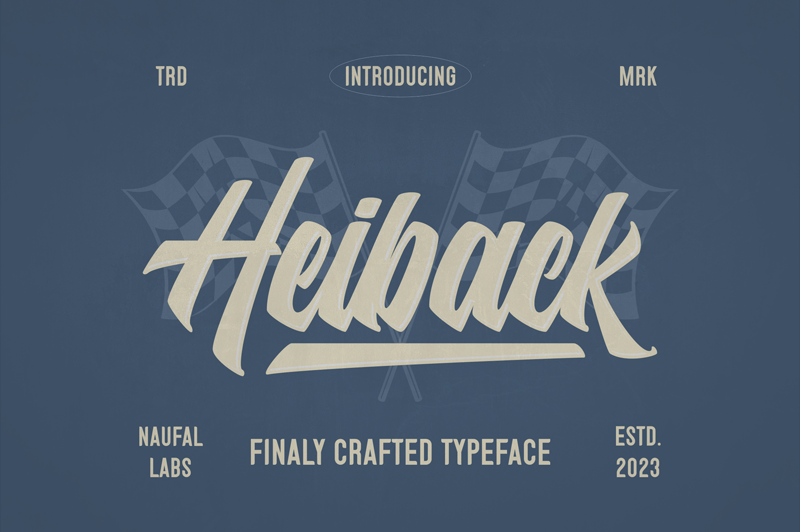
Font name: | Heiback |
Author: | Naufal Labs |
Note by Naufal Labs | |
Heiback has the impression of modern, trendy and elegant. Tight spacing, narrow letters and sharp edges gives Heiback it distinctive looks and charachter. This demo font is for PERSONAL USE ONLY! But any donation are very appreciated. Paypal account for donation : https://paypal.me/naufallabs Link to purchase full version and commercial license : https://crmrkt.com/lv4raK For Extended License or Corporate License Please Reach Us on email : naufallabstudio@gmail.com if you need something! Happy Designing! Thank you. Regards, Naufal Labs |